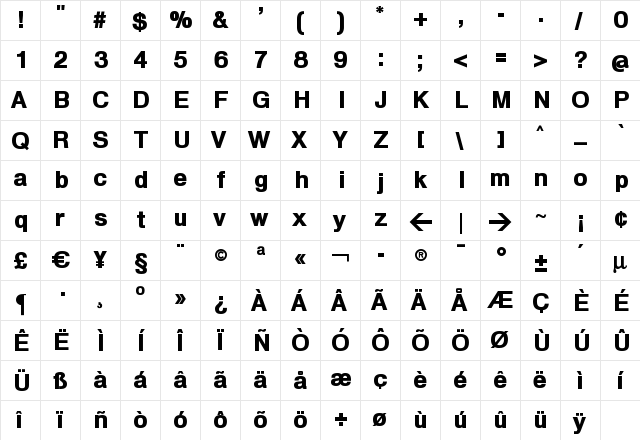
HeldustryFT Black Regular Font Preview
HeldustryFT Black Regular
Design Context for HeldustryFT Black Typeface
HeldustryFT Black takes a measured approach to typography — its balanced proportions and neutral character make it a reliable workhorse for both digital and print work.